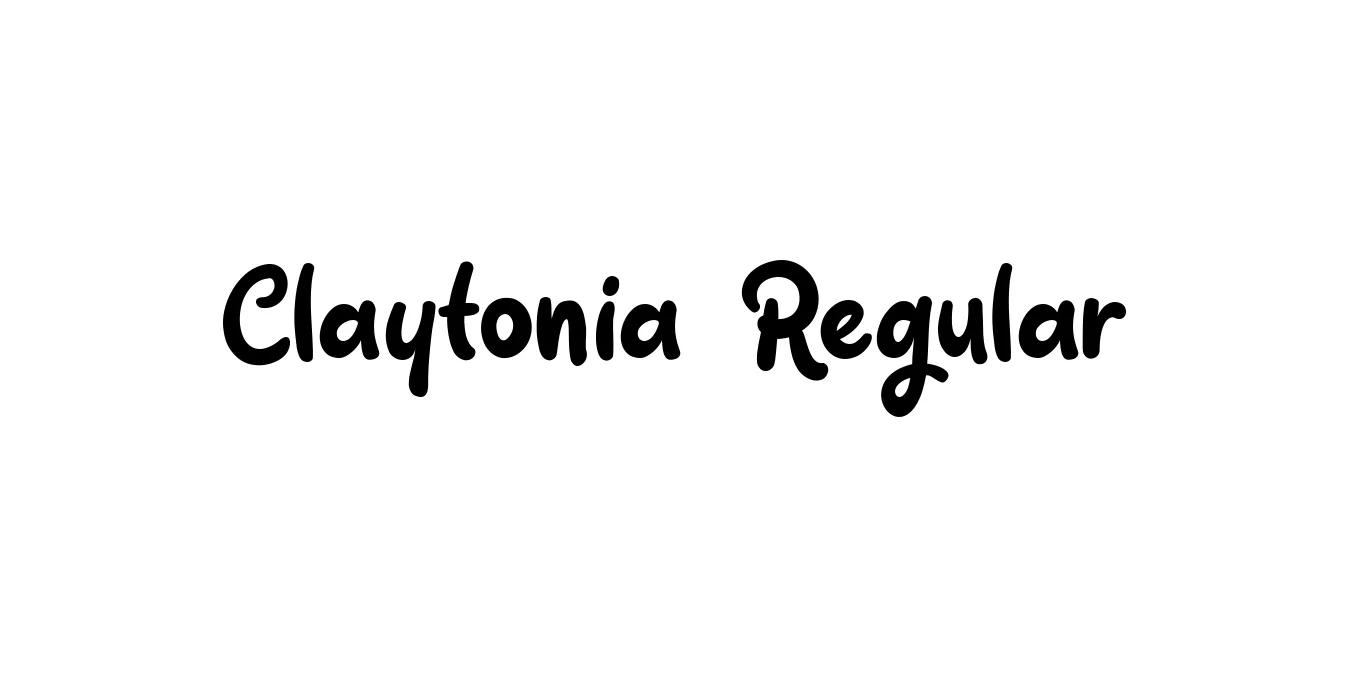
Claytonia Regular
Designed by Letterhand (Ahmad Ramzi Fahruddin)
Claytonia Regular is a sophisticated handwritten script font characterized by its elegant, flowing strokes and natural calligraphic feel. Designed to capture the essence of organic penmanship, it offers a rhythmic balance that makes it ideal for projects requiring a touch of personal flair and high-end aesthetic appeal.
This font is particularly effective in branding and editorial design, where its unique character set and stylistic alternates can shine. Whether used for luxury invitations, fashion logos, or expressive packaging, Claytonia Regular brings a sense of authenticity and timeless grace to any digital or print canvas.
Claytonia Regular Best Uses
Perfect for creating romantic and elegant event stationery.
Ideal for luxury brands and fashion-forward visual identities.
Great for creating stylish quotes and atmospheric Instagram graphics.
Adds a premium, artisanal touch to high-end product wraps.